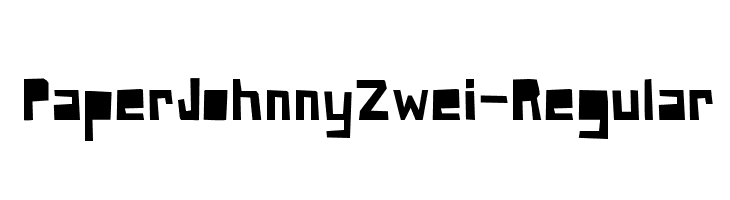
An elegant, calligraphic font with ornate, flowing strokes and balanced proportions.
Bold, geometric sans-serif font with rounded corners and modern style.
A playful, hand-drawn font with a textured, patterned fill and bold, rounded characters.
An elegant and flowing script font with intricate loops and swirls.
A modern cursive font with elegant, flowing letterforms and moderate contrast.
A sleek, modern font with geometric influences and clean lines.
A playful, handwritten font with smooth, flowing lines and a casual style.
A bold, geometric font with art deco influences and a modern twist.
A modern, geometric outline font with bold uppercase and softer lowercase characters.
A bold, playful font with rounded edges and a modern style.
A bold, playful font with rounded edges and a bubbly appearance.
An elegant, condensed font with tall, slender characters and delicate curves.
A dotted, decorative font with a playful and modern aesthetic.
A decorative font with characters formed by intricate parallel lines.
A bold, playful font with a hand-drawn, irregular style.
An edgy, angular font with a hand-drawn, graffiti-inspired style.
A bold, geometric font with a modern, digital aesthetic.
A bold, italic font with a dynamic, modern style and sharp angles.
A bold, handwritten-style font with a casual, marker-like appearance.
A futuristic, geometric font with blocky, angular letterforms.
A dynamic, cursive script font with fluid, expressive strokes.
A playful, whimsical font with dynamic strokes and charming character details.
A modern, clean sans-serif typeface with excellent readability.
Bold, modern sans-serif typeface with clean lines and strong presence.
A modern sans-serif italic typeface with clean lines and medium contrast.
A bold, filled-in font with thick outlines and a strong visual impact.
A bold, three-dimensional font with a geometric and blocky style.
A bold, playful font with exaggerated curves and unique character shapes.
A bold, italicized font with sharp angles and dynamic cuts, exuding a modern, futuristic style.
A bold, geometric font with sharp angles and unique cutouts.